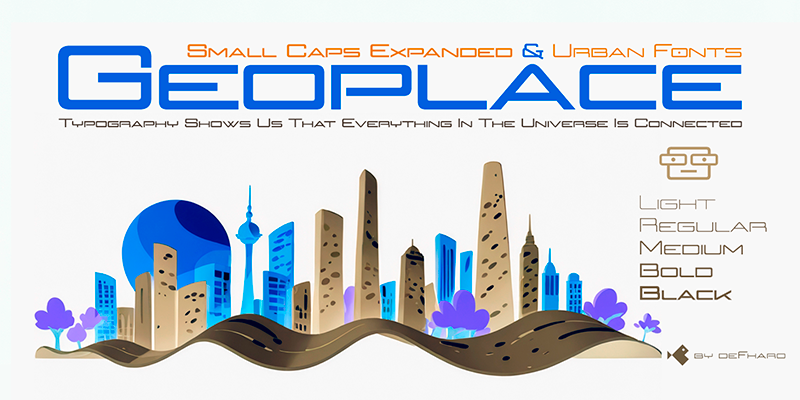
Font name: | Geoplace SC |
Geoplace Small Caps is a versatile typeface that combines aesthetic appeal and functionality, the expanded proportion creates a feeling of spaciousness and modern elegance, and a unique and cohesive aesthetic. Font is offered in five weights, from thin and elegant to solid and powerful, along with advanced Open Type features and alternative letter and number options. ========================= DOWNLOAD FULL VERSIONS & LICENSES: https://defharo.com/fonts/geoplace-small-caps/ ========================= |